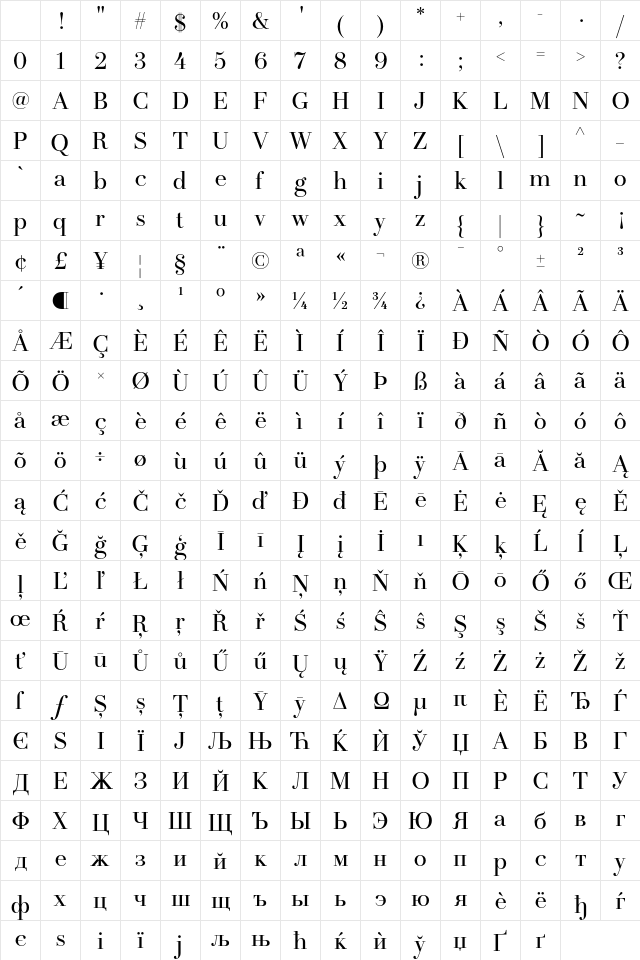
LT Afficher Neue Caption is a composed and adaptable typeface that performs quietly and consistently across a wide range of design contexts. Its slender proportions lend an understated elegance to any composition.